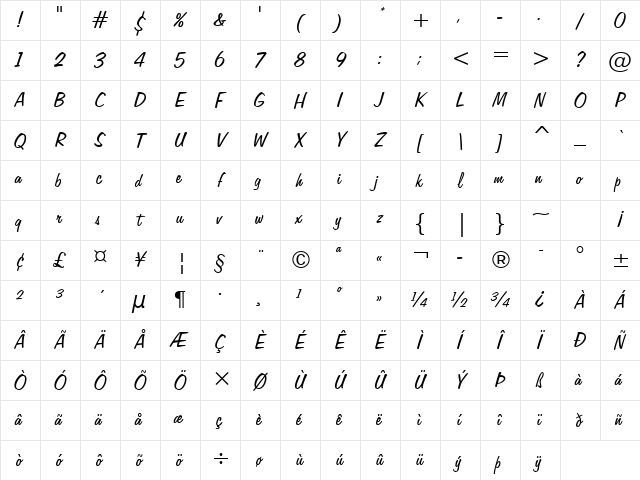
HW Freehand 575 BT flows with the natural rhythm of handwritten lettering, making it ideal for designs that call for warmth and personal expression.
Font Pairing: Combine HW Freehand 575 BT with a simple geometric sans for maximum contrast - the tension between flowing curves and clean structure is a classic typographic pairing.
Pro Tip: Use HW Freehand 575 BT for short runs of text - names, titles, or taglines. Extended body copy in script faces tires the eye quickly.